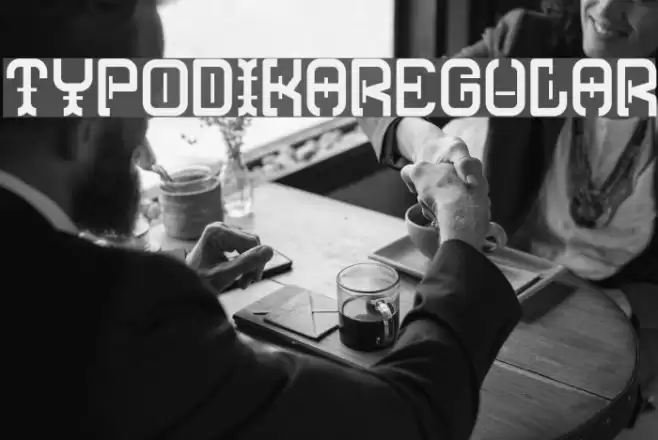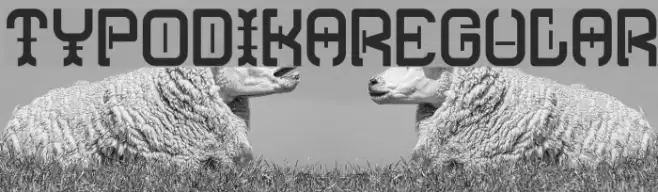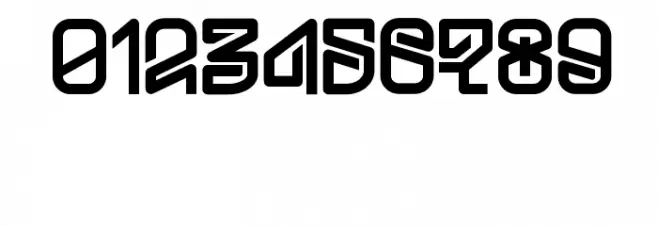
Typodika-Regular Font
Typodika-Regular Description
This font features a bold, geometric design with a futuristic and industrial feel. The characters are constructed with thick lines and unique cutouts, creating a sense of depth and dimension. The uppercase letters are particularly striking, with symmetrical and angular elements that give them a strong presence. The numbers and special characters maintain this bold style, ensuring consistency across all glyphs. This font is ideal for projects that require a modern and edgy aesthetic.
A bold, geometric font with a futuristic and industrial design from Uncategorized fonts.
- Proposed Projects: Perfect for branding, posters, album covers, and any project needing a modern, edgy look.